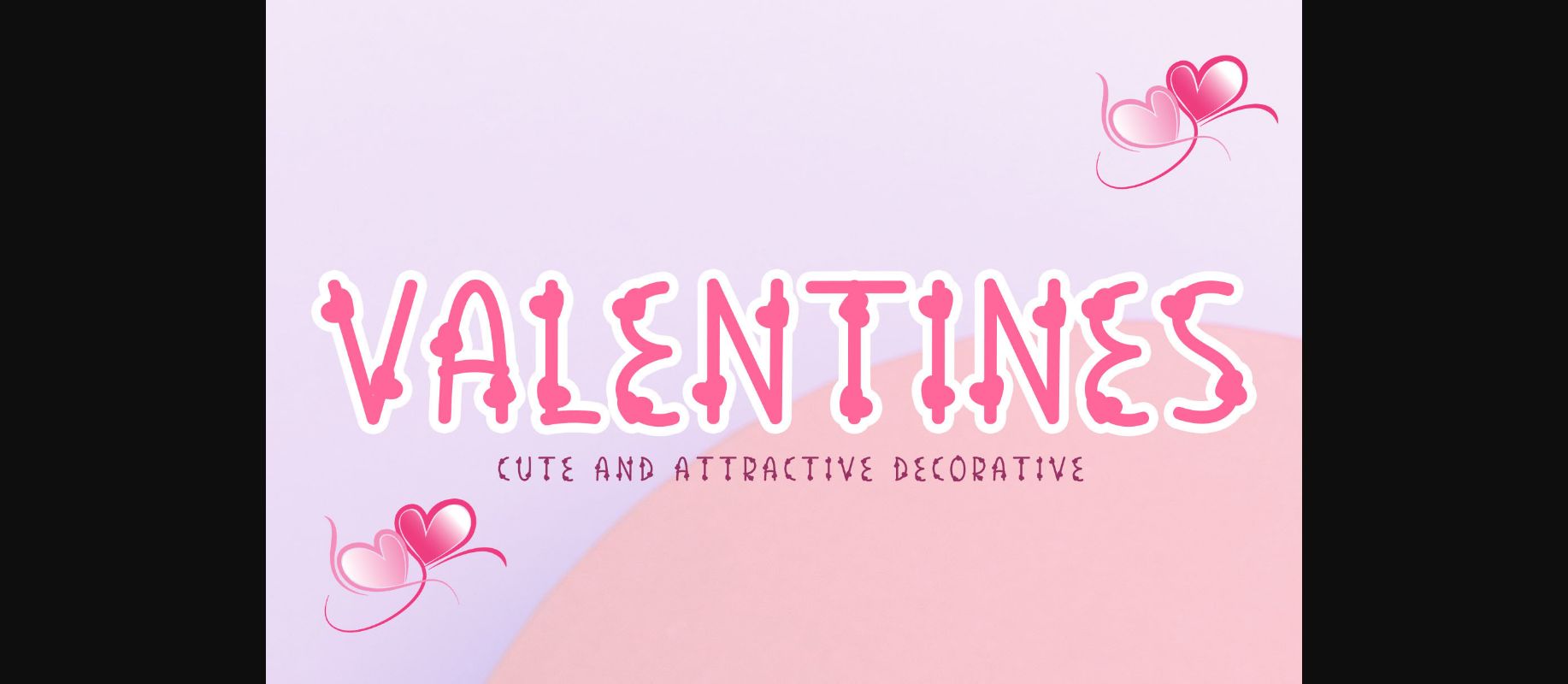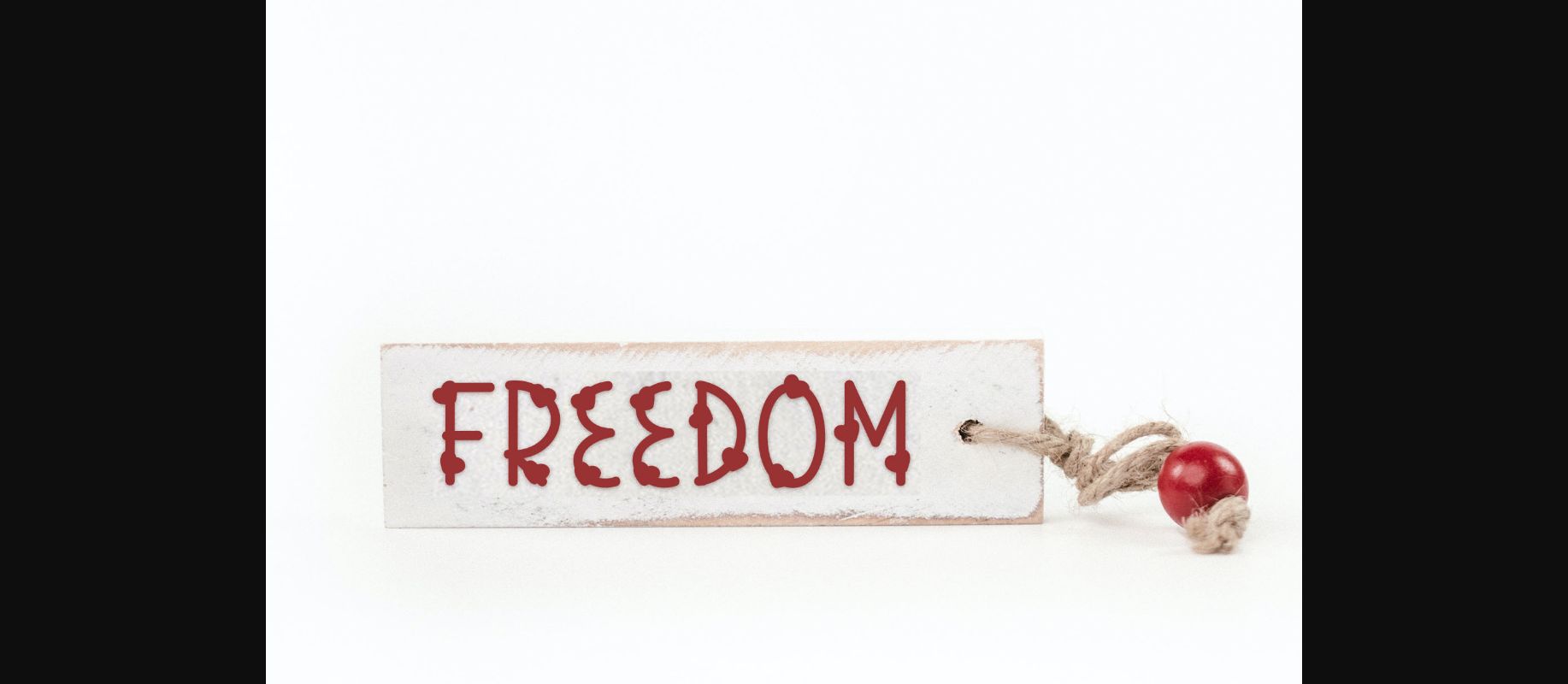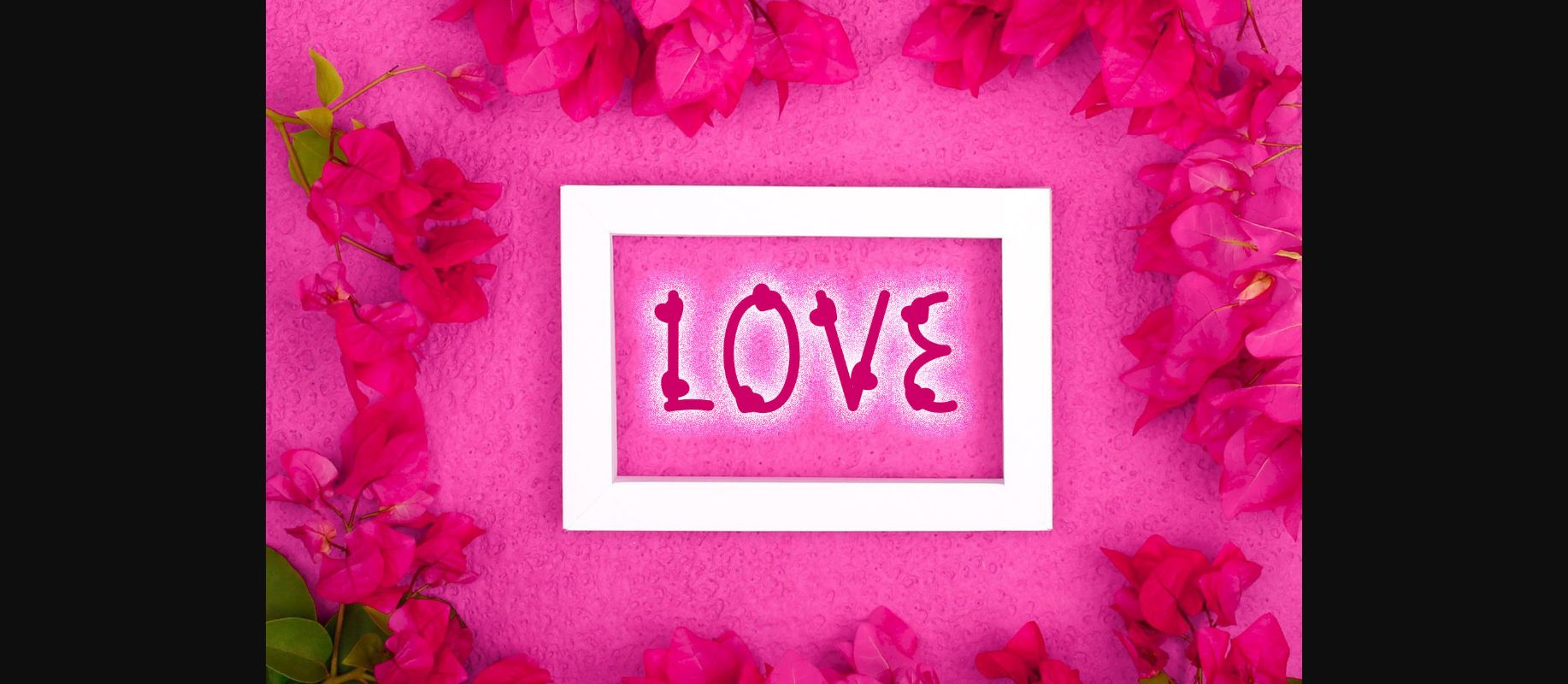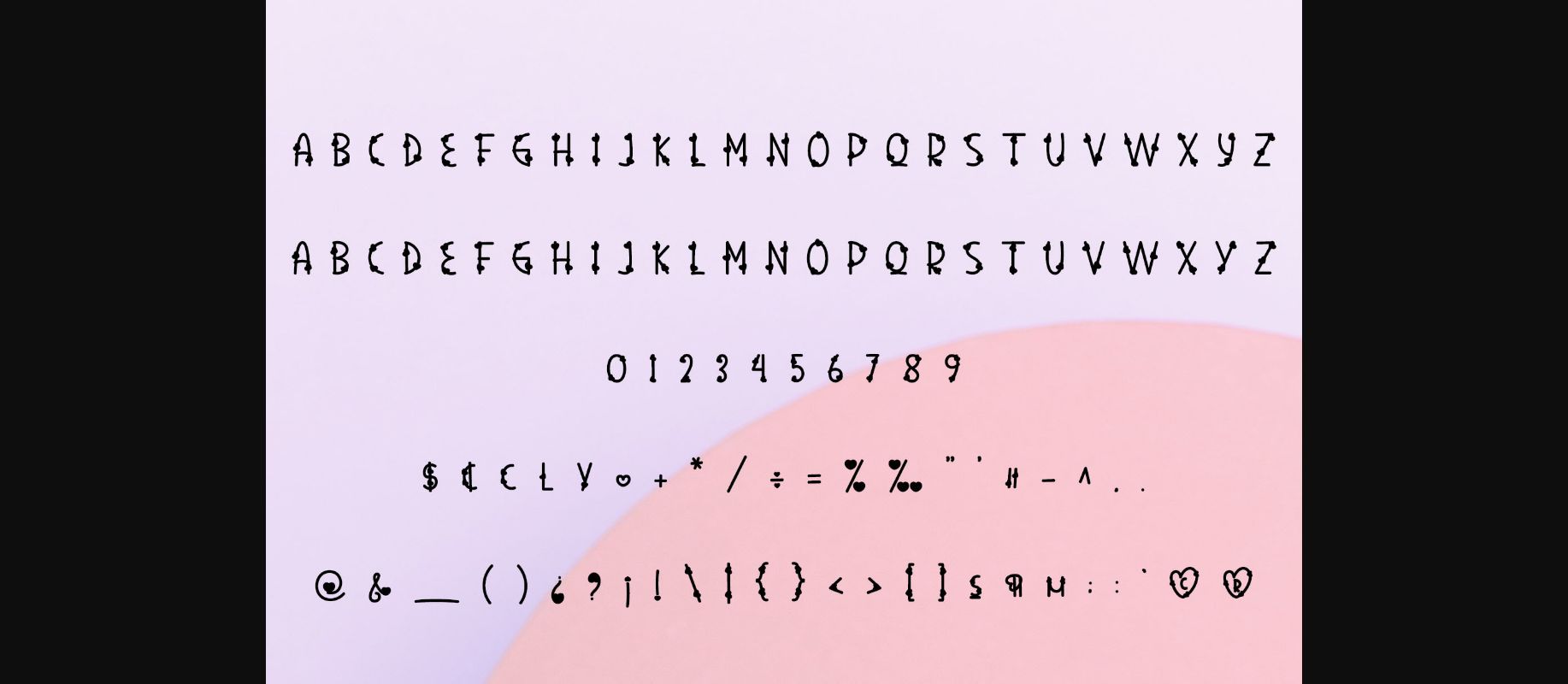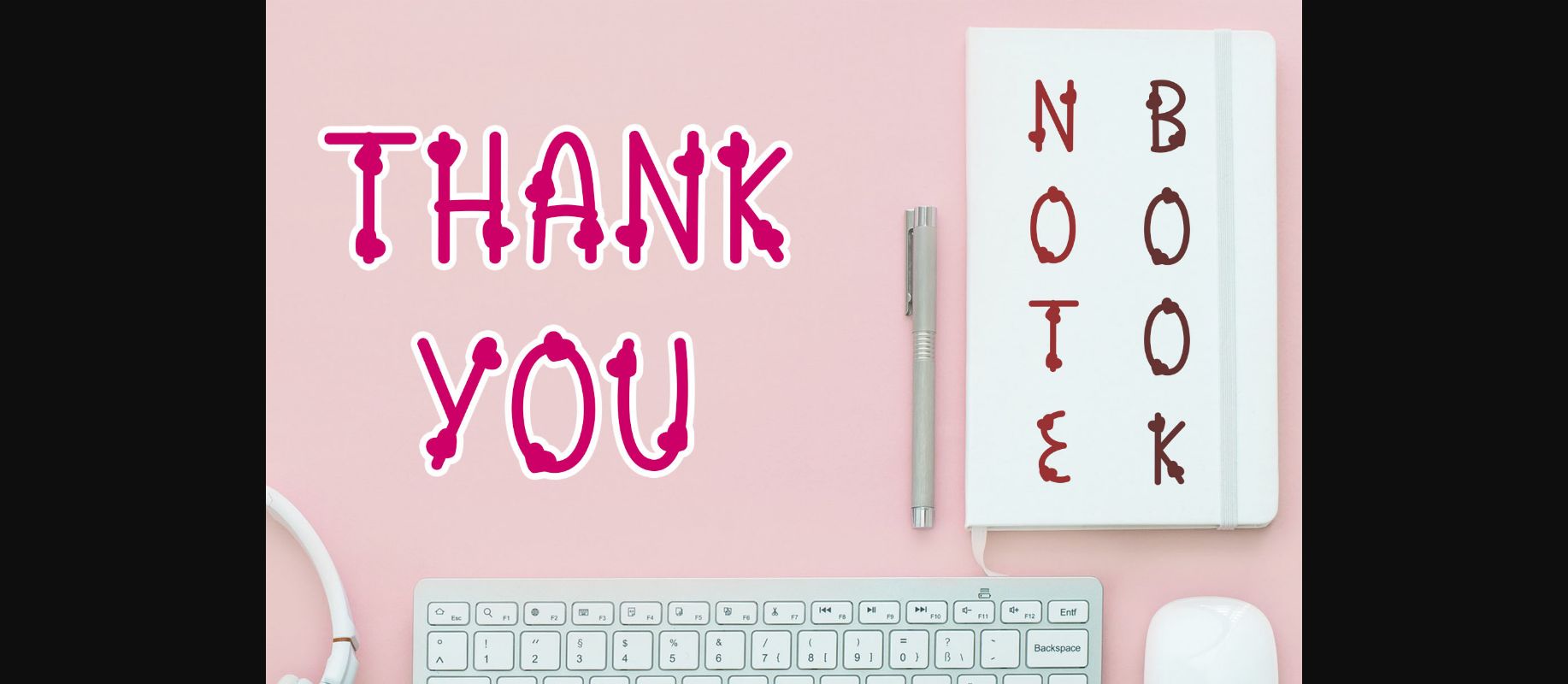
HomeDecorative FontsValentines Font Decorative Fonts Valentines Font FacebookXPinterestWhatsApp 1 of 7 ... Valentines Font Poster 2... Valentines Font Poster 3... Valentines Font Poster 4... Valentines Font Poster 5... Valentines Font Poster 6... Valentines Font Poster 7... About Valentines Font Valentines is a cute and attractive decorative font. The simplicity and kindness of the font will add a sense of beauty to any design idea. Get this stunning display font, and use it to create lovely designs! DOWNLOAD NOW People also explored History Agnes Font Handwritten Font BD Console Triangle Font Sweet Boy Font Christmas Farmhouse Font Mision Font Queenssa Font Sweengly Font 274 0 TagsValentines Font Previous articleMahjong FontNext articleGothica Font LEAVE A REPLY Cancel reply Comment: Please enter your comment! Name:* Please enter your name here Email:* You have entered an incorrect email address! Please enter your email address here Website: Save my name, email, and website in this browser for the next time I comment. Personal Use Free The Winter Personal Use Free Read more about this font Pompom Personal Use Free Read more about this font Darla Personal Use Free Read more about this font Cadosa Personal Use Free Read more about this font BLOG 5 Fonts That Will Dominate Design Trends in 2026 5 Fonts for 2026 That Will Dominate Design Trends Typography plays a critical role in visual communication, and as we look ahead to 2026, it’s... Top 10 Handwritten Fonts That Elevate Your Designs Best Fonts for YouTube Videos: Make Your Thumbnails Stand Out Best Fonts for T-Shirt Design – Top 2025 Picks